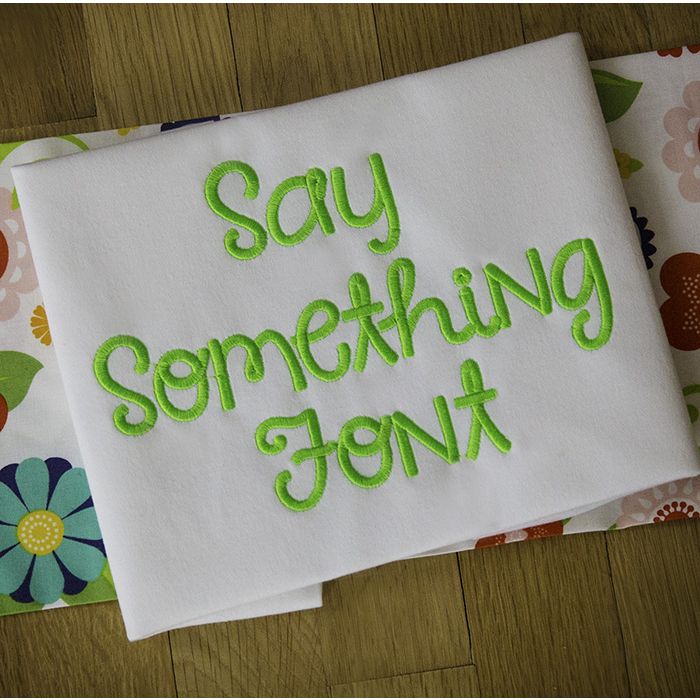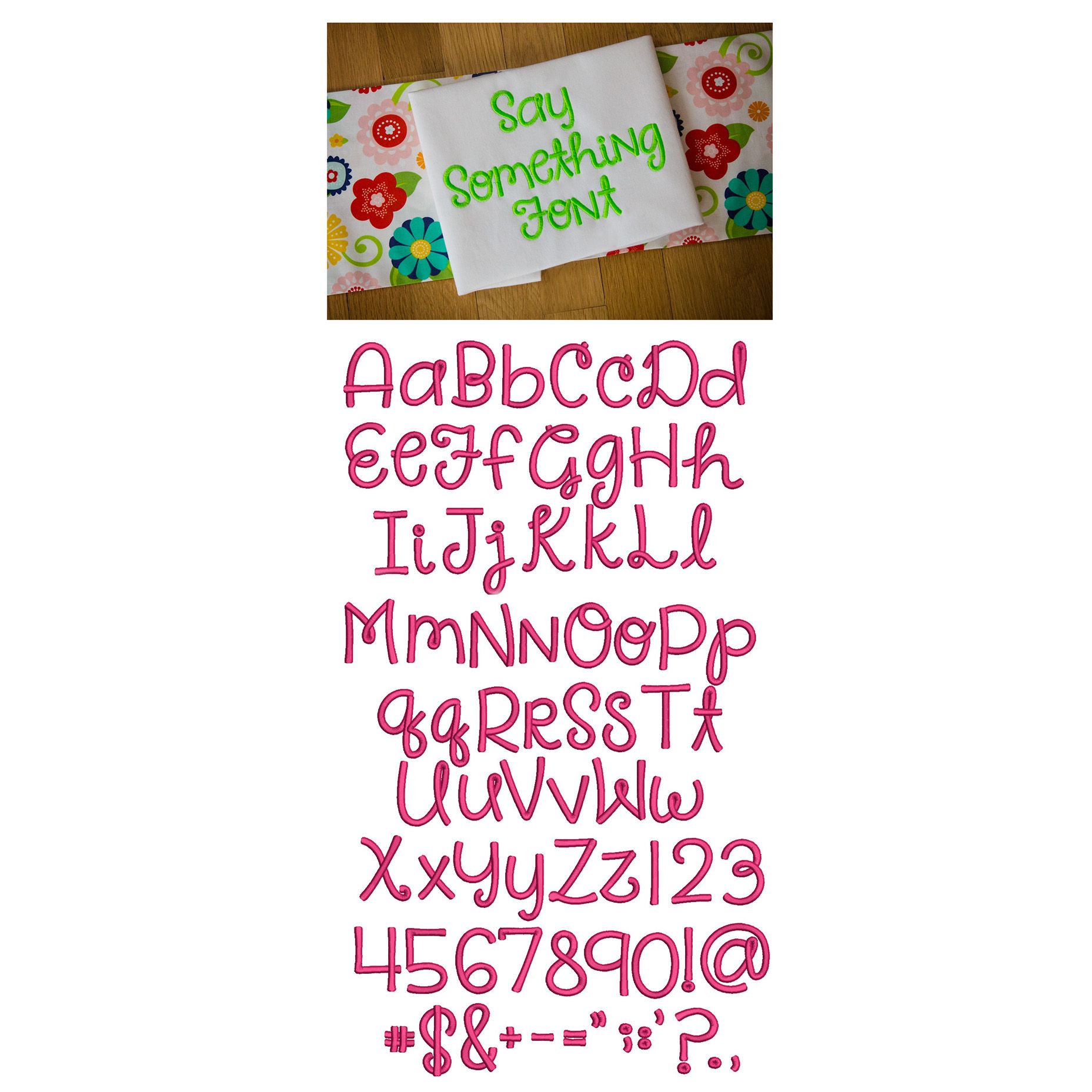
Say Something Satin Stitch Embroidery Font
Cute and whimsical! All of our font alphabets are 100% manually digitized to bring you maximum stitch quality.